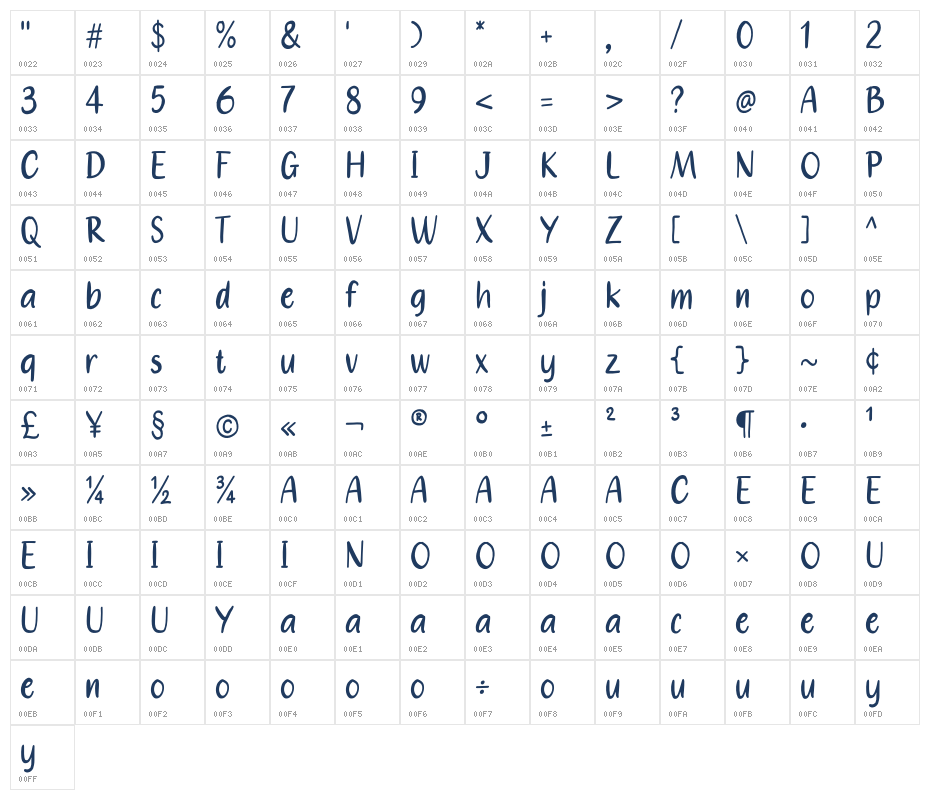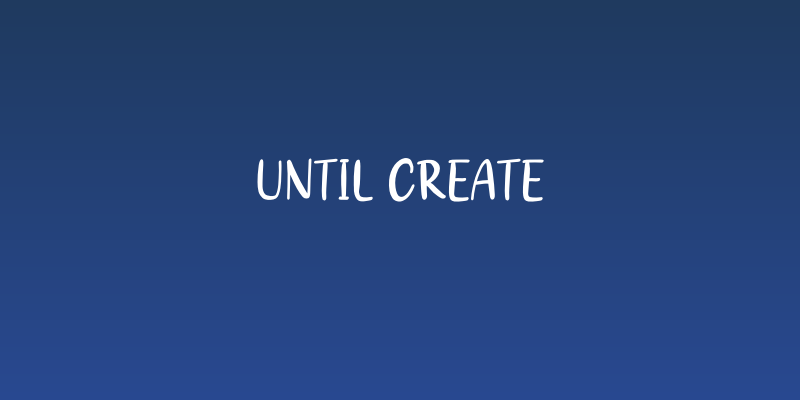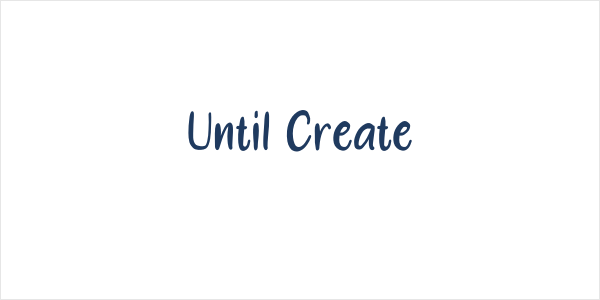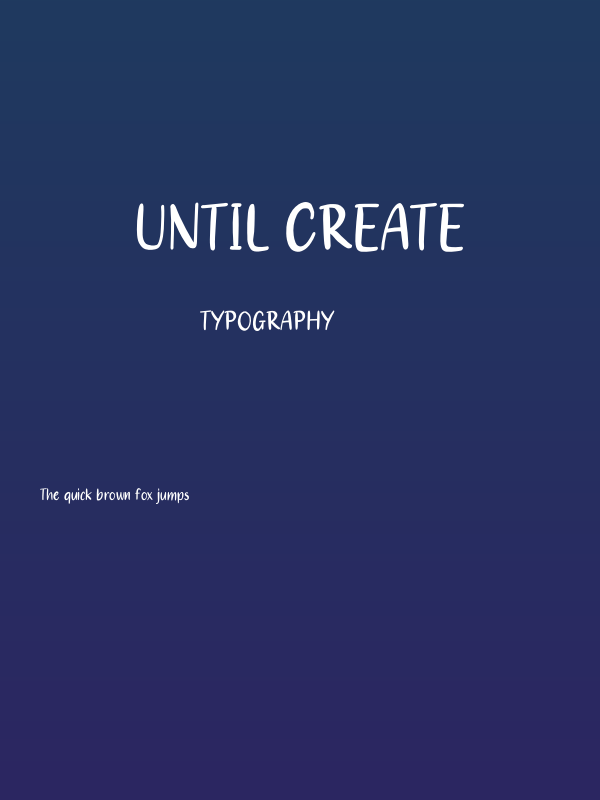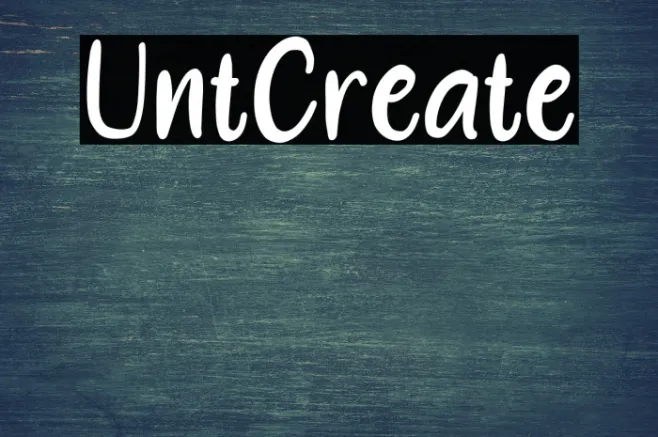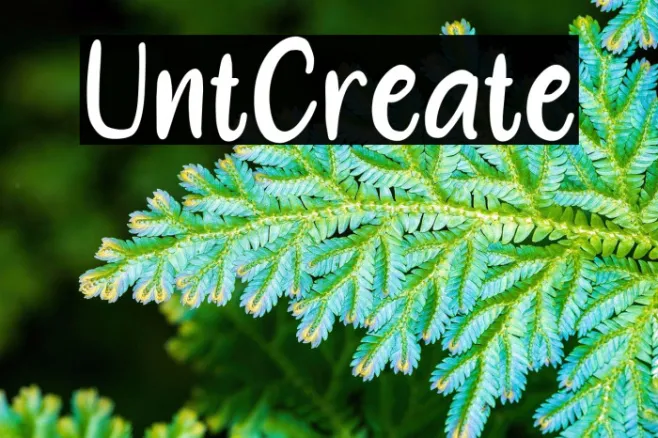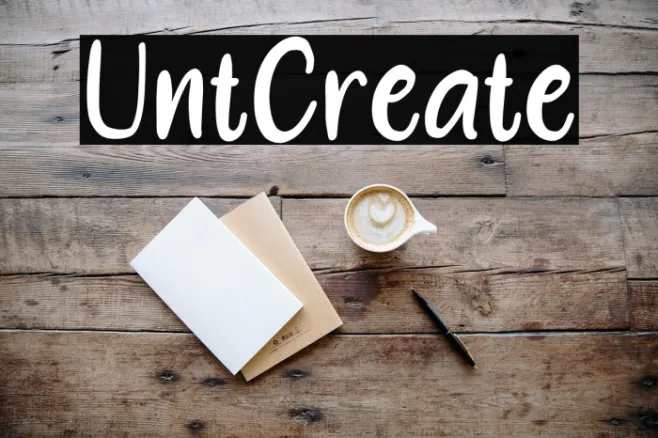
Until Create Font
Until Create Description
A casual, handwritten style font with a playful and friendly appearance, featuring slightly irregular strokes and a smooth flow.
| Overall Style | Casual, Friendly, Handwritten |
| Use Case | Headlines, Body text, Logos, Invitations |